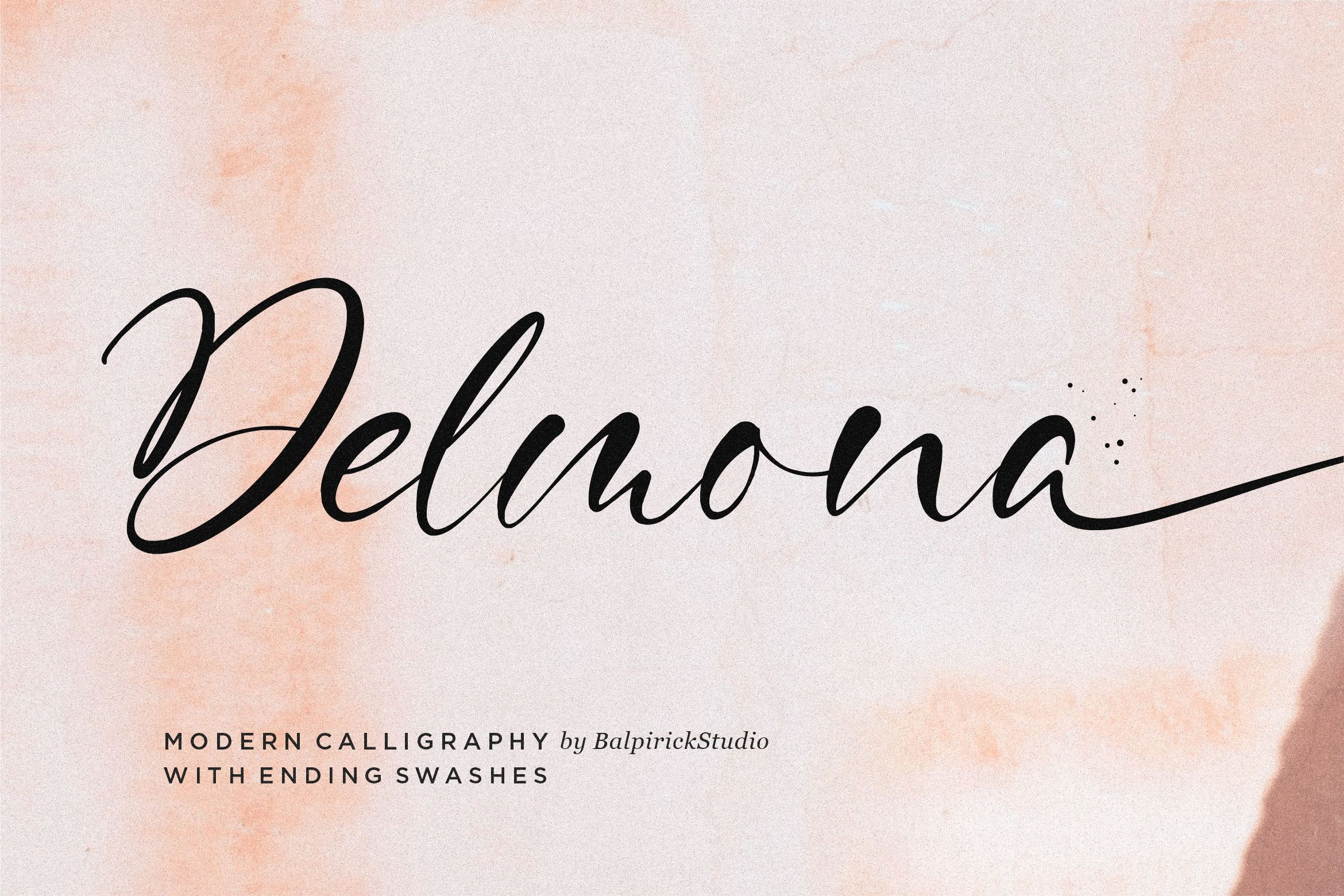
Proudly Present, Delmona Font
Delmona is a flowing handwritten font, described by an elegant touch, perfect for your favorite projects. Fall in love with its incredibly distinct and timeless style and use it to create spectacular designs!
- Lowercase Ending Swash